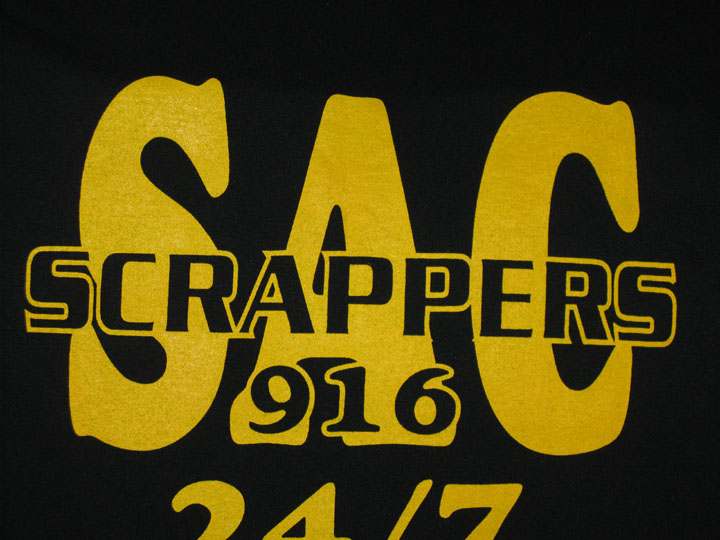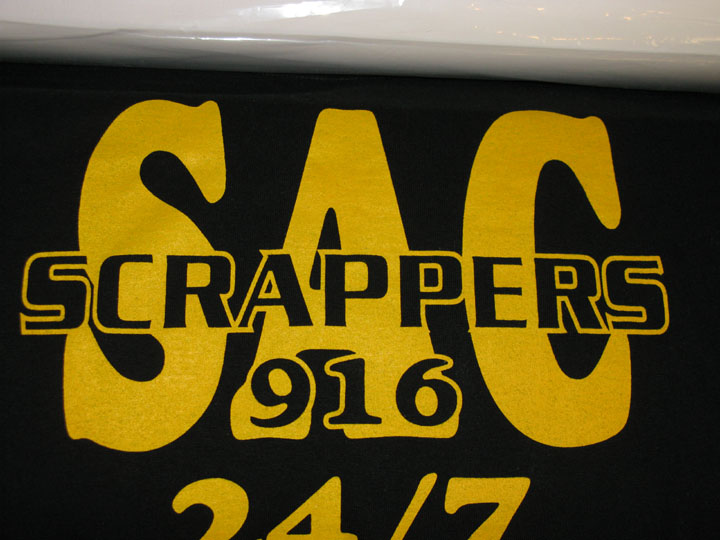
Can anyone help me identify these fonts please? Initially I thought this would be no problem to reproduce, I figured the font for SAC was Cooper or Goudy and the font used for SCRAPPERS was Serpentine. I can make Goudy work but the A is still wrong. What's got me totally puzzled is SCRAPPERS, Serpentine is visually similar but it is not it, the strokes vary in different areas of the characters. No matter how much I distort, condense, stretch , outline or inline it I just cannot get it to match, is there possibly a different Serpentine font other than SerpentineDBol?
Use GOUDY HEAVYFACE then condense that rather than using GOUDY HEAVYFACE COND. You'll find that the A should then match as well as the other letters. Yes there are various Serpentine versions that will vary slightly from one font house to another. Good luck